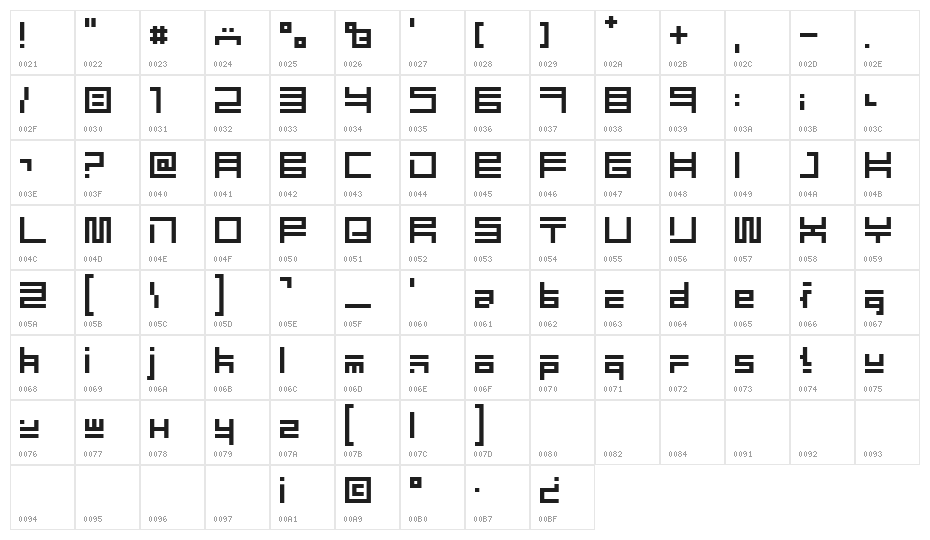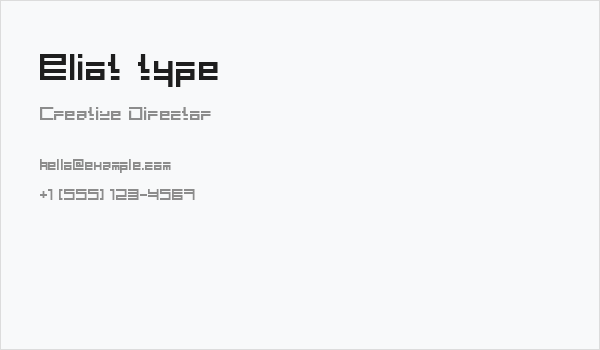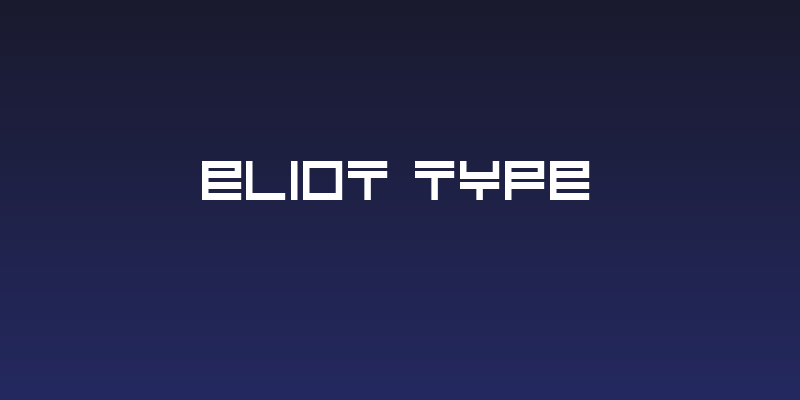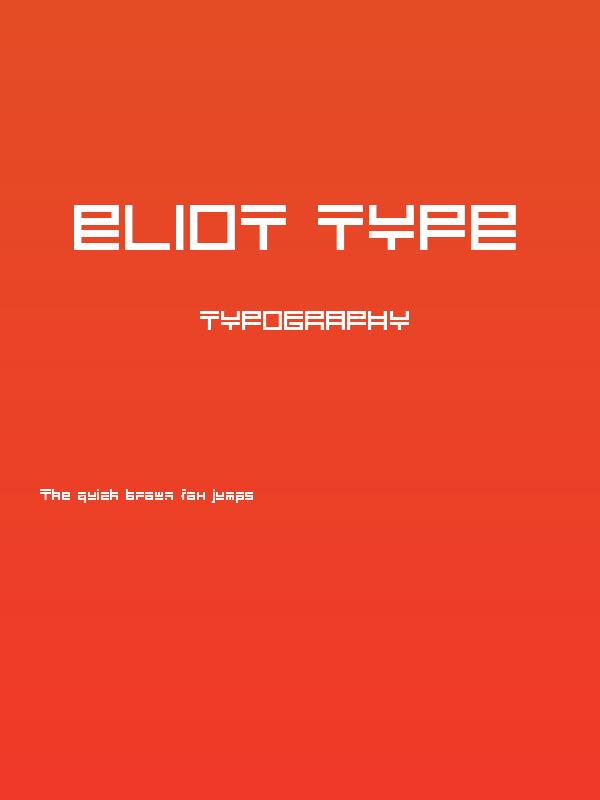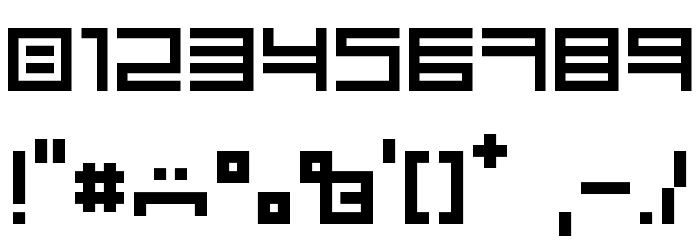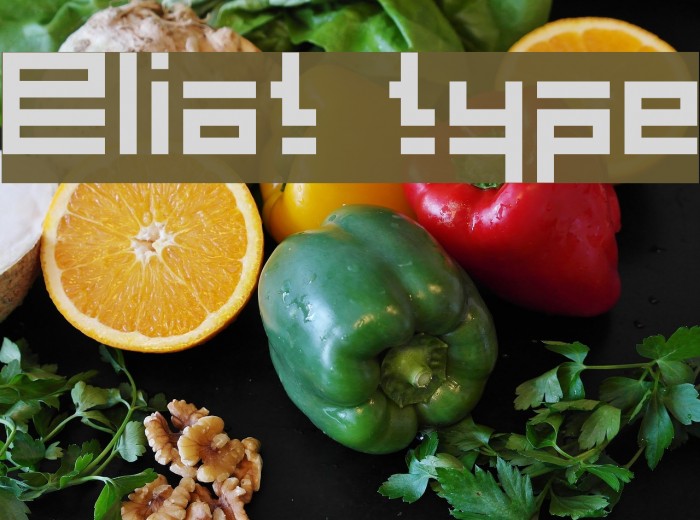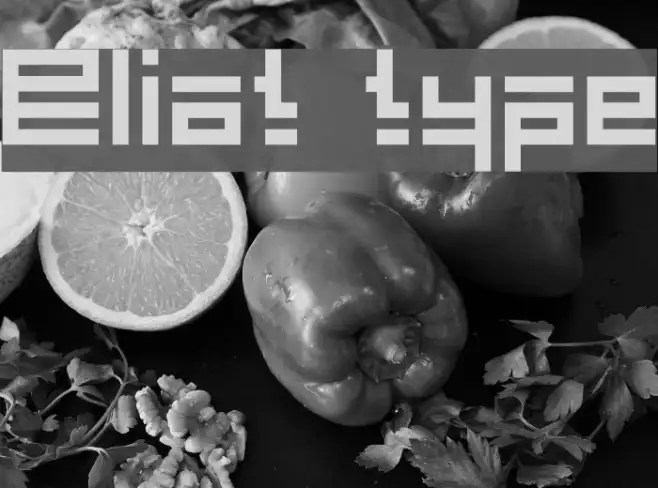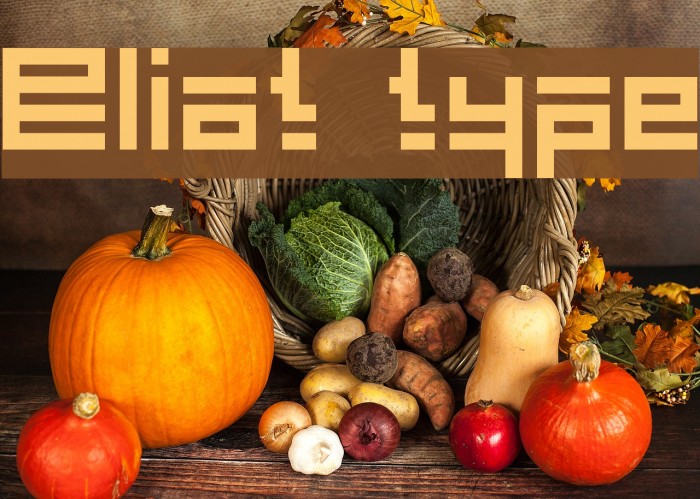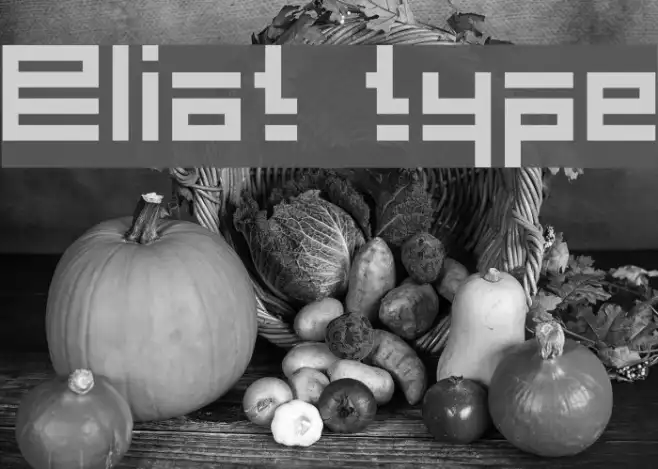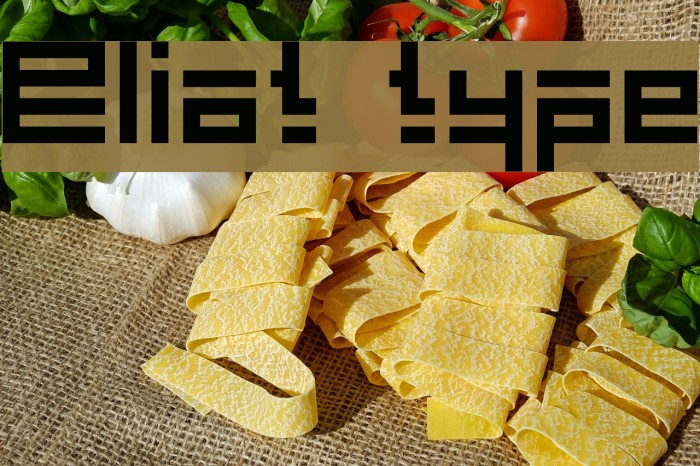
Eliot type Font
Eliot type Description
This font features a bold, geometric style with a distinctly digital and futuristic aesthetic. Each character is constructed with uniform, block-like shapes, giving it a pixelated appearance reminiscent of early computer graphics. The uppercase and lowercase letters maintain a consistent height, contributing to a monospaced feel, although the font is not strictly monospaced. The numerals and special characters follow the same design principles, ensuring a cohesive look across all glyphs. The overall design is clean and minimalistic, with a strong emphasis on horizontal and vertical lines, making it highly legible even at smaller sizes.
| Use Case | Headlines, Logos, Digital Art |
| Proposed Projects | Ideal for tech-related projects, video game designs, digital art, and any creative work that requires a modern, futuristic touch. |